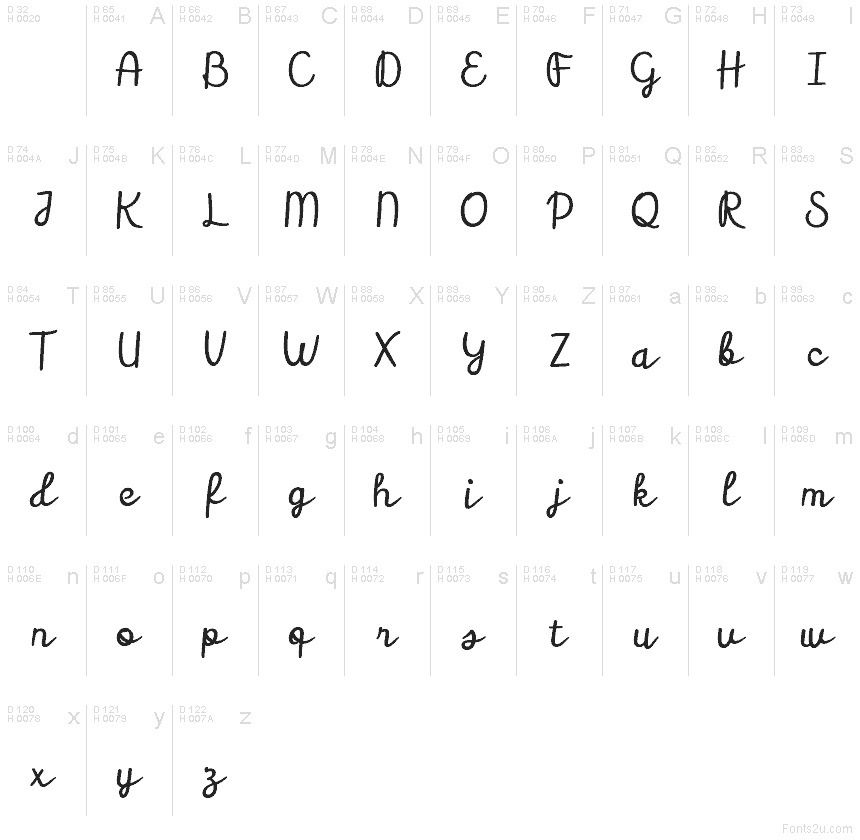
CS Abiola Regular Demo
CS Abiola font by Craft Supply Co. is a free monoline handwritten script font. It solves the common “cute but messy” problem by balancing easy warmth with clean, steady rhythm—rounded terminals, even strokes, and open counters keep it readable without losing charm. The subtle rightward slant and smooth joins feel like a tidy gel-pen note, friendly yet organized.
Using CS Abiola, you’ll get effortless personality on boutique logos, product labels, quote graphics, Instagram stories, invitation suites, café menu headers, and gift tags. This free font shines when you need approachable branding that still scans fast. Pair it with a crisp, neutral sans for body copy, and add a touch of letter spacing to let those loops and curves breathe.